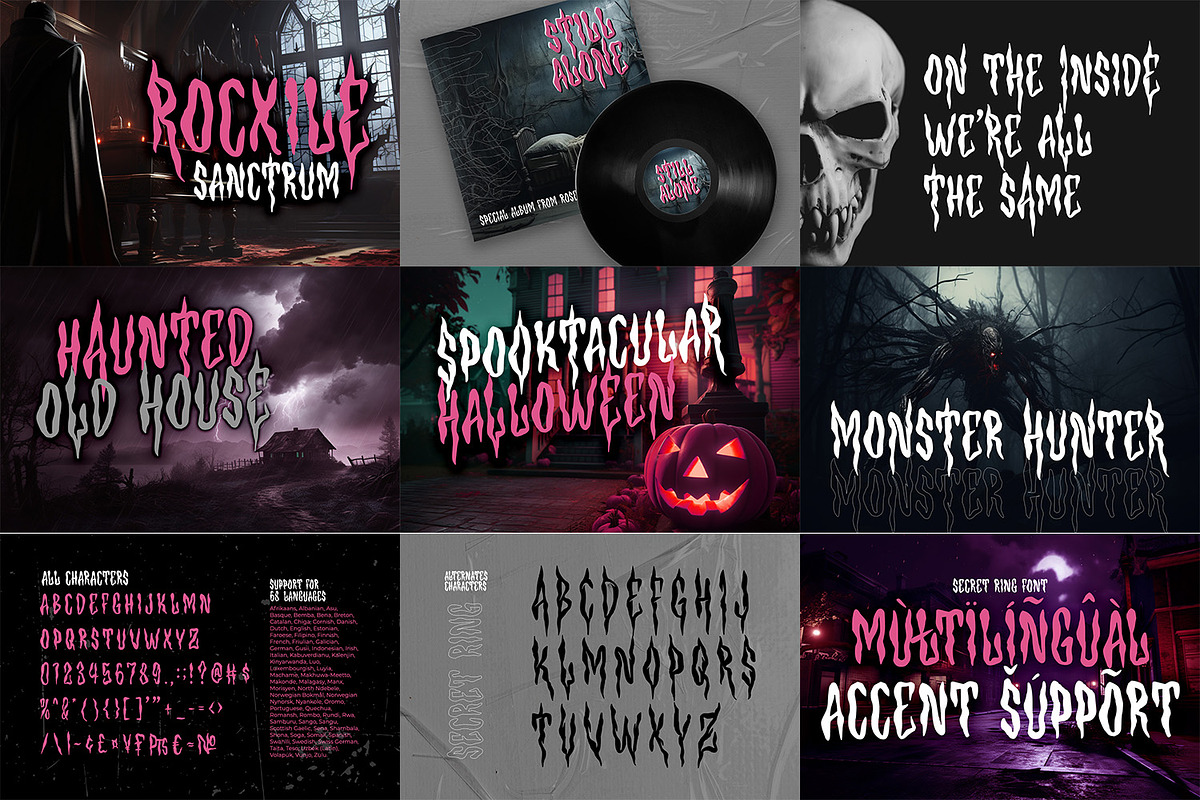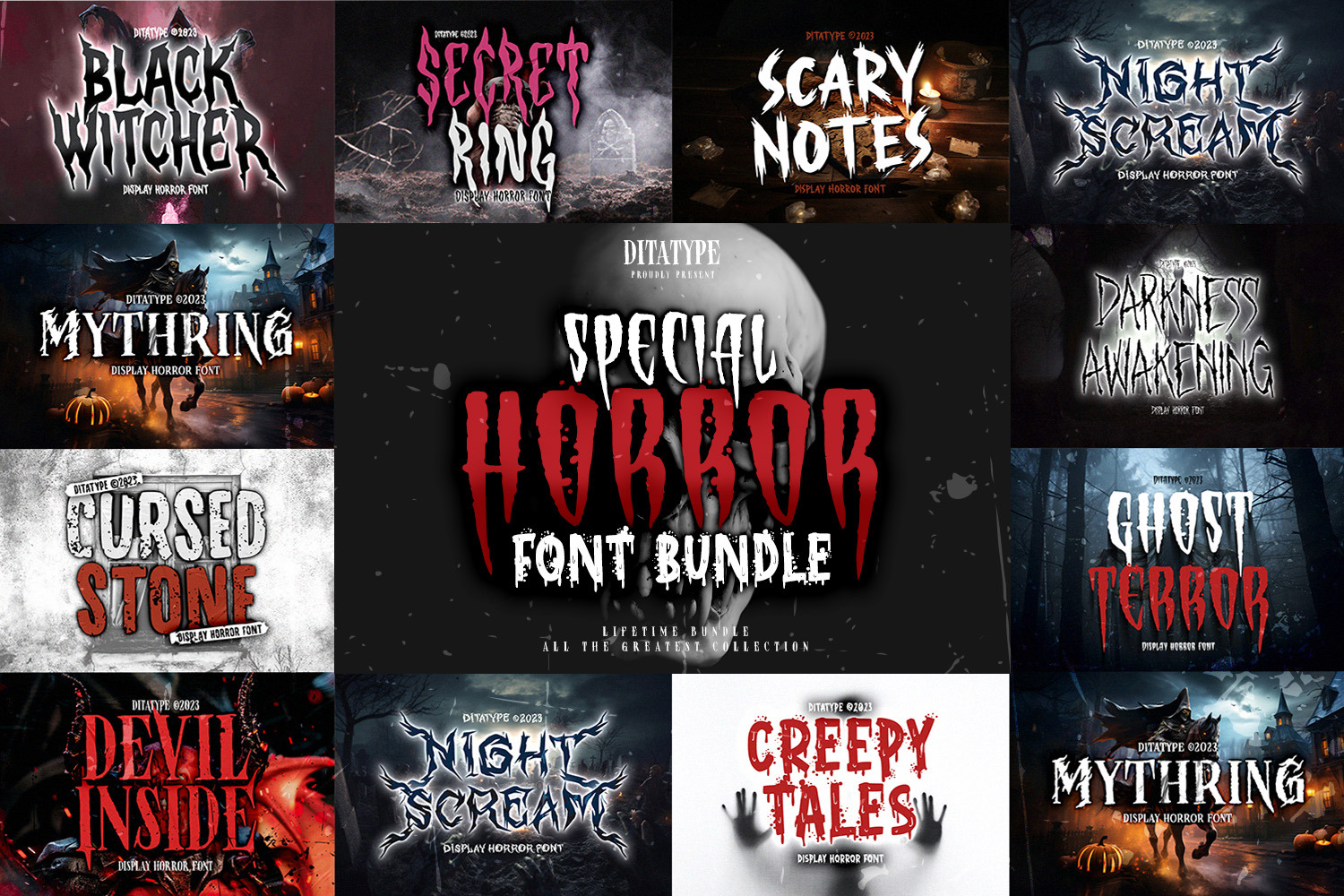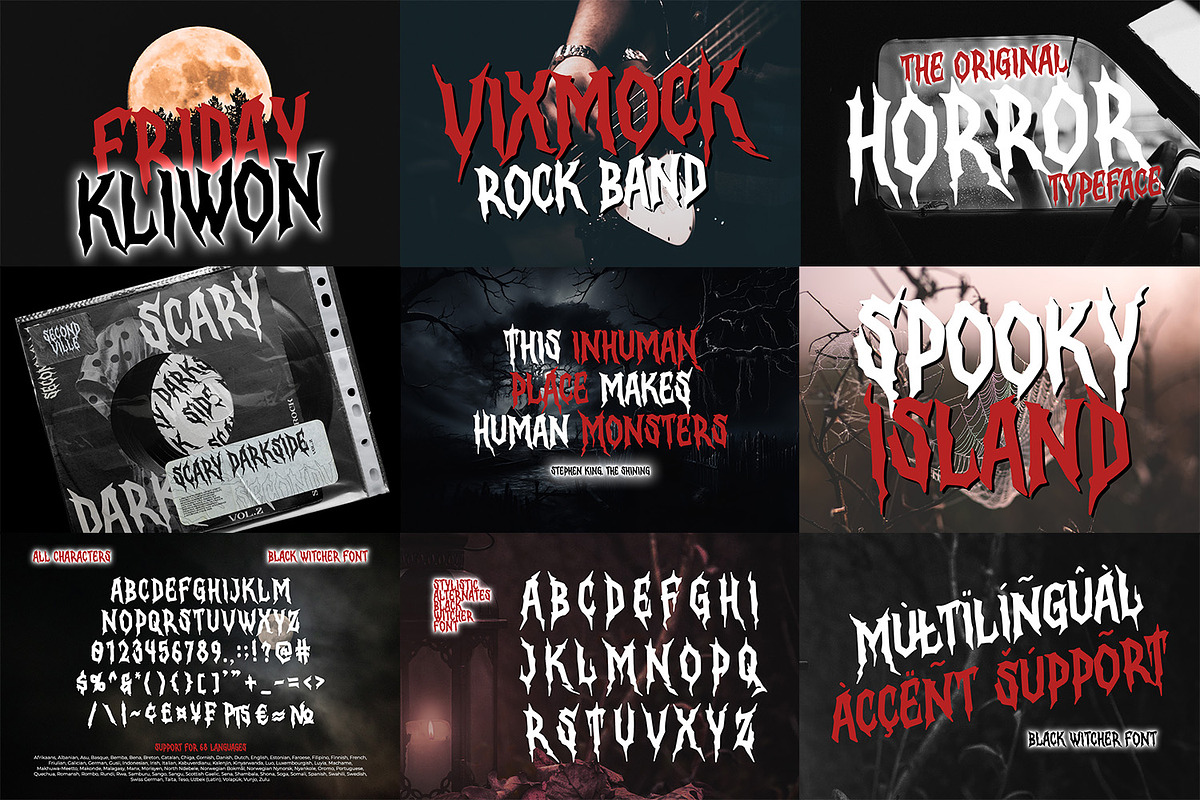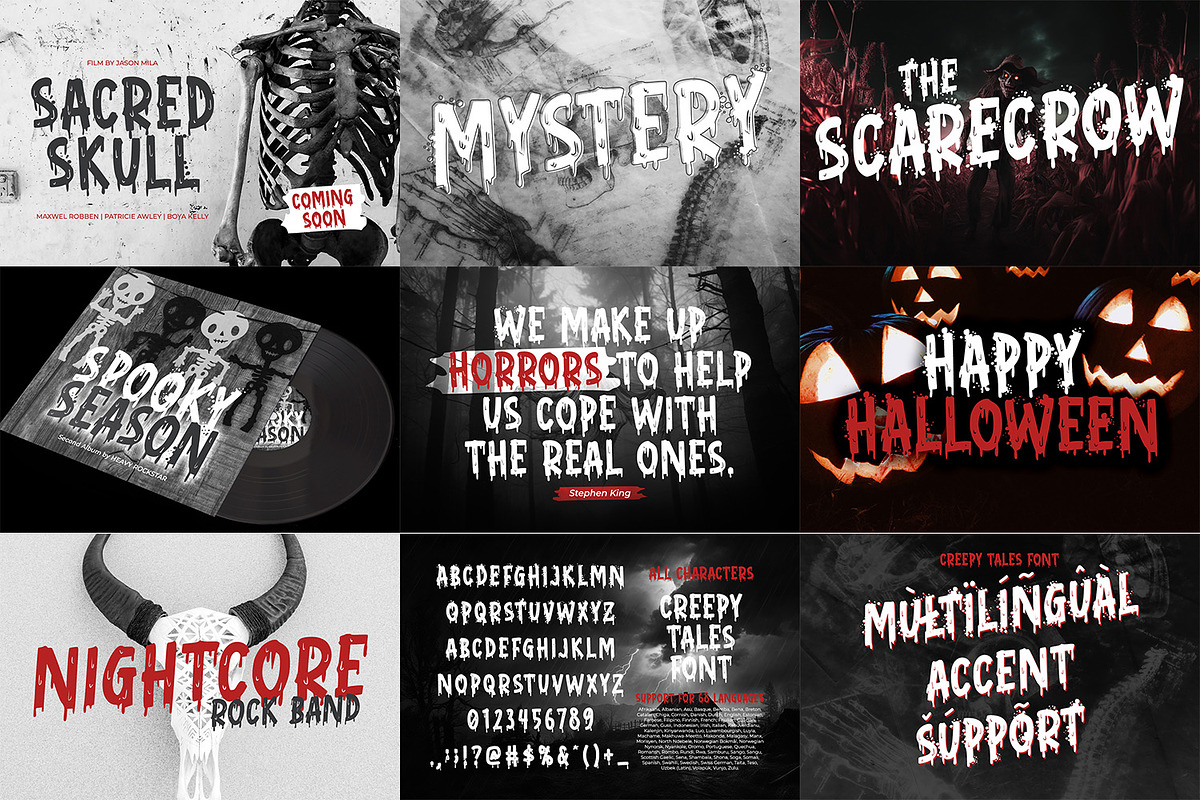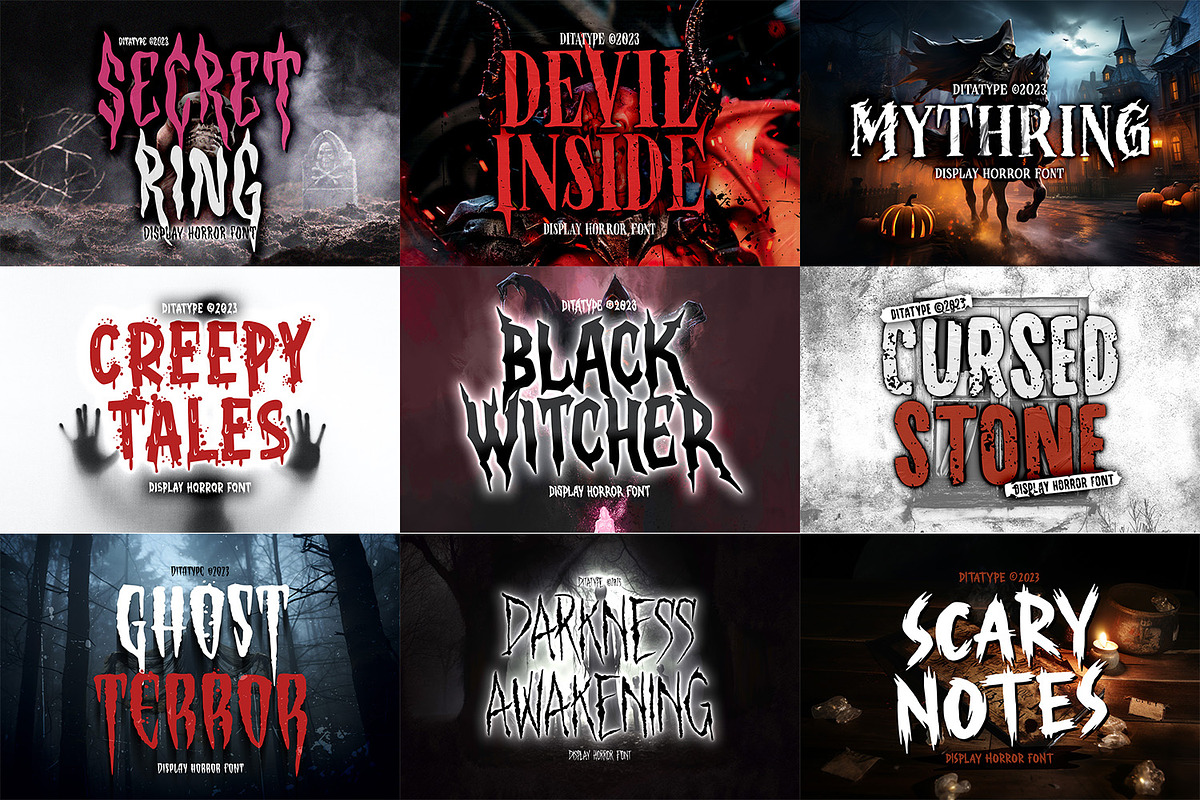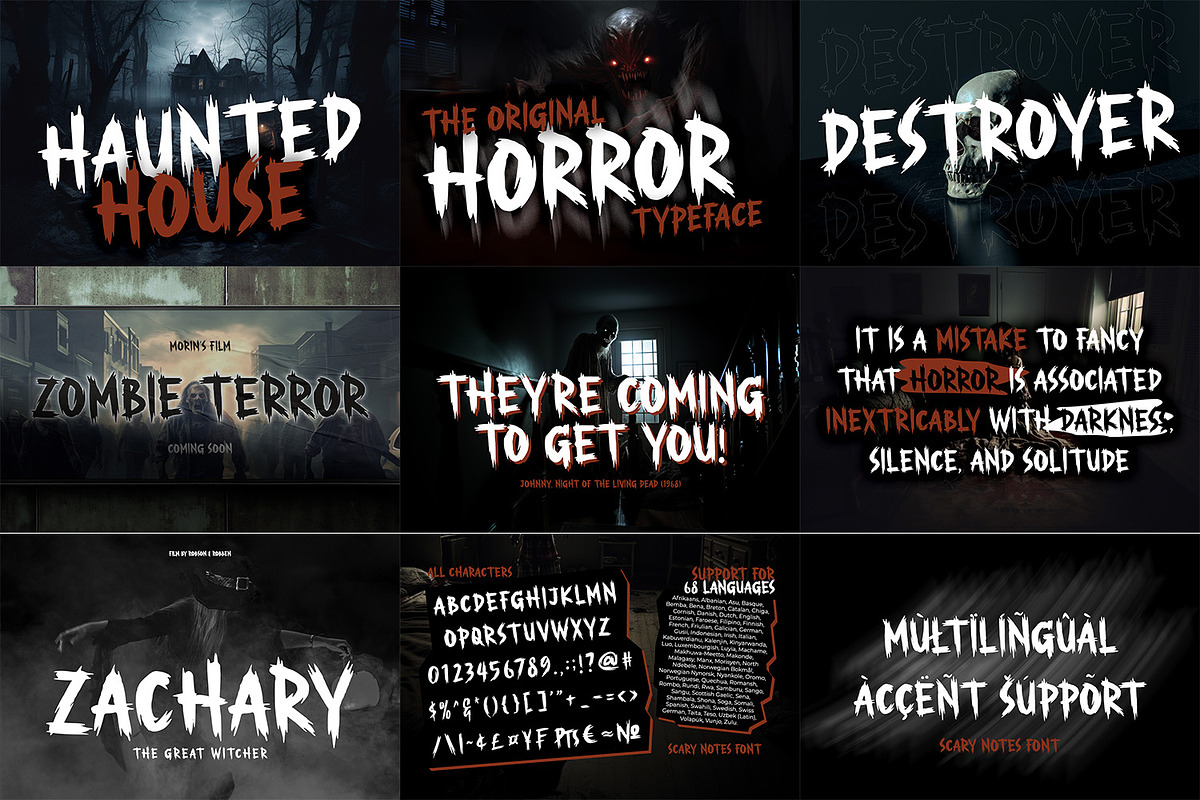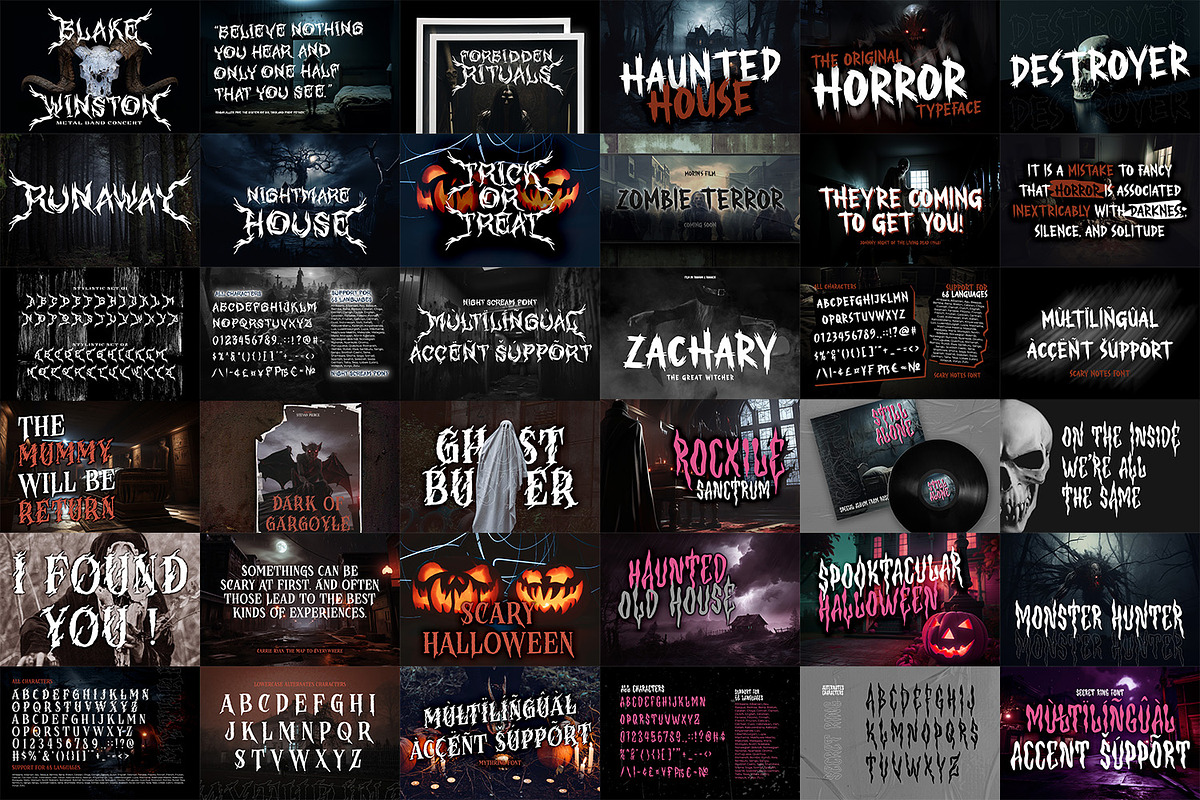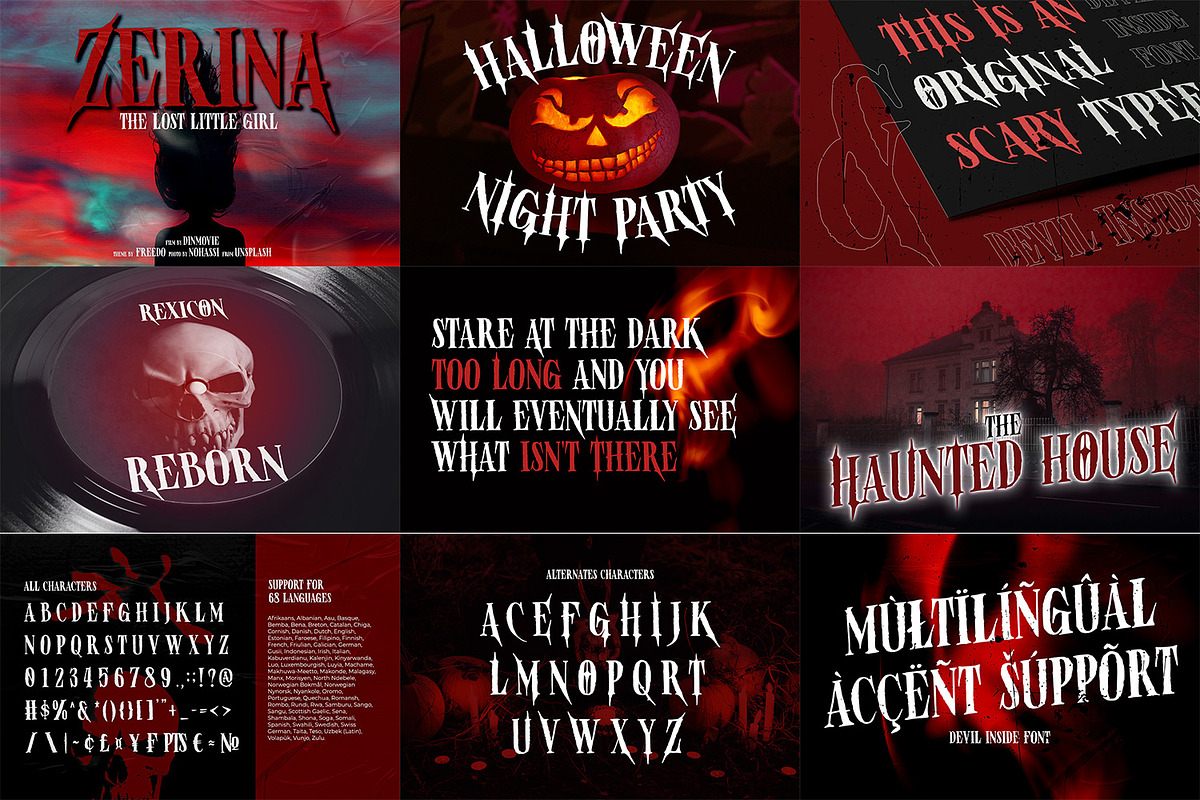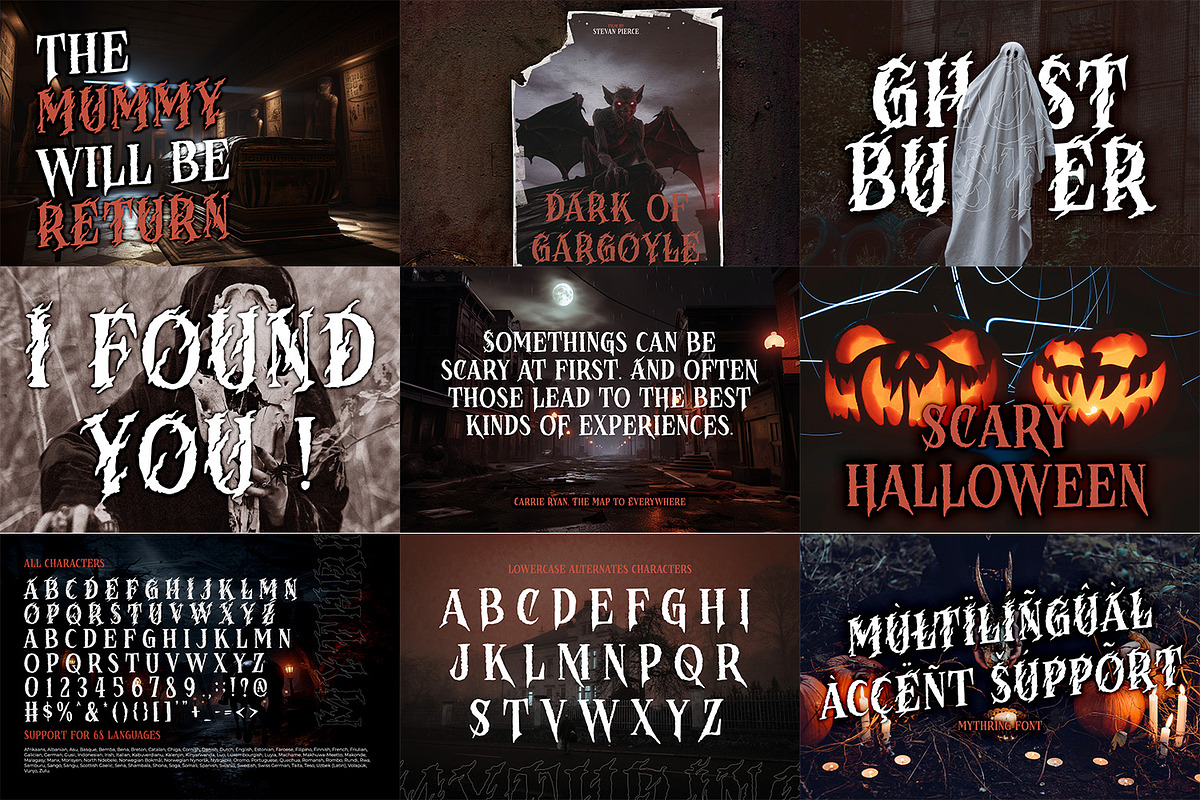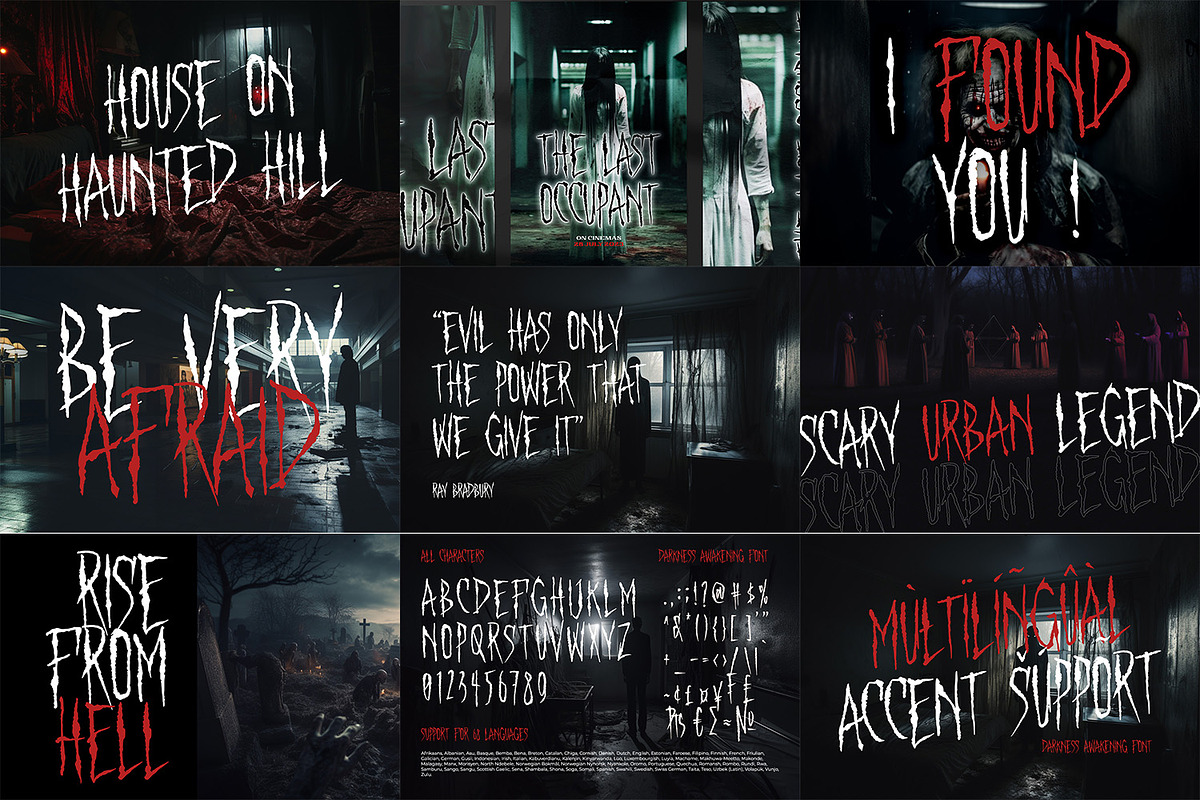
Special Horror Font Bundle
Hello, Everyone! Introducing Special Horror Font Bundle from Ditatype!
A spine-chilling collection that will send shivers down your spine. This special bundle includes a carefully curated selection of terrifying fonts, each designed to bring an aura of horror and mystery to your projects. Create gorgeous titles, logos, printed quotes, posters, and branding materials!
The fonts include full set of character and glyph and it also includes Multilingual Supports to help you reach a global audience. See the previews above to get some inspiration on how you can use them.
Fonts include are :